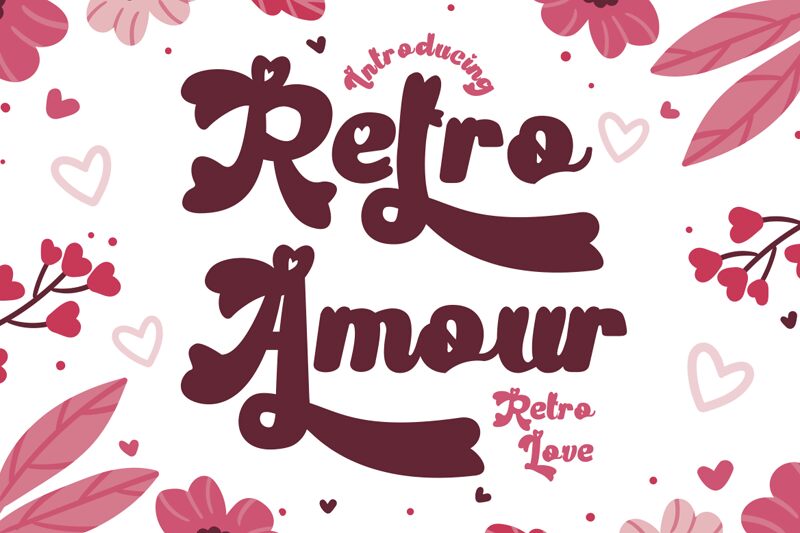
Retro Amour font family by PutraCetol Studio features thickened forms with a slightly ornate nature in homage to famous holiday sign stylings of the 50s and 60s. The design holds an informal elegance that is both charming and friendly with wide letters and a low uniform height that feels modern despite its historic influence. The free font family includes a total of 2 font styles.
Retro Amour fits perfectly in relaxing typographic experiences on retro or vintage inspired projects. Editorial and digital designs can utilize this typeface on headlines, titles, and cover pages. Print designs such as clothing patterns, posters, tickets, tableware, cups, and napkins also benefit from the use of Retro Amour. Party and holiday invitations along with restaurant menu designs can also make use of this font.